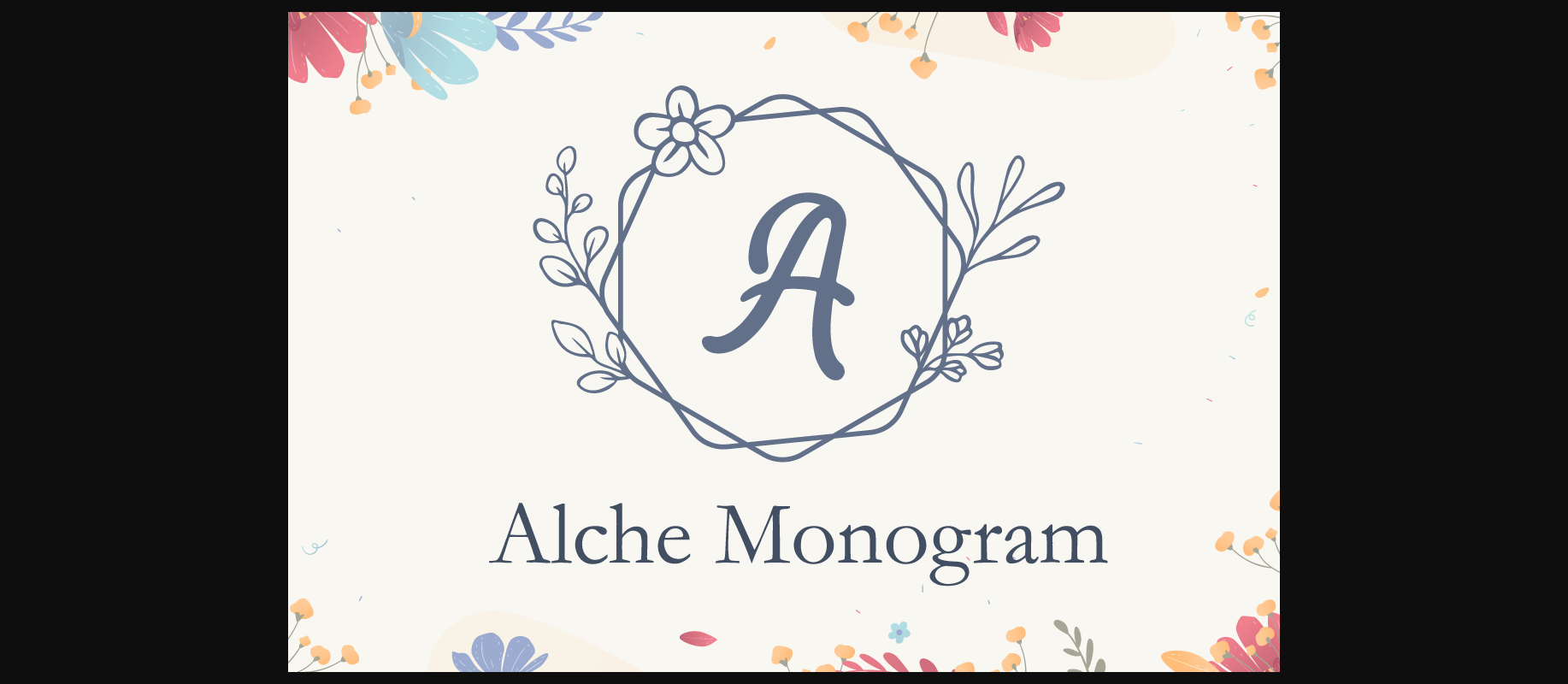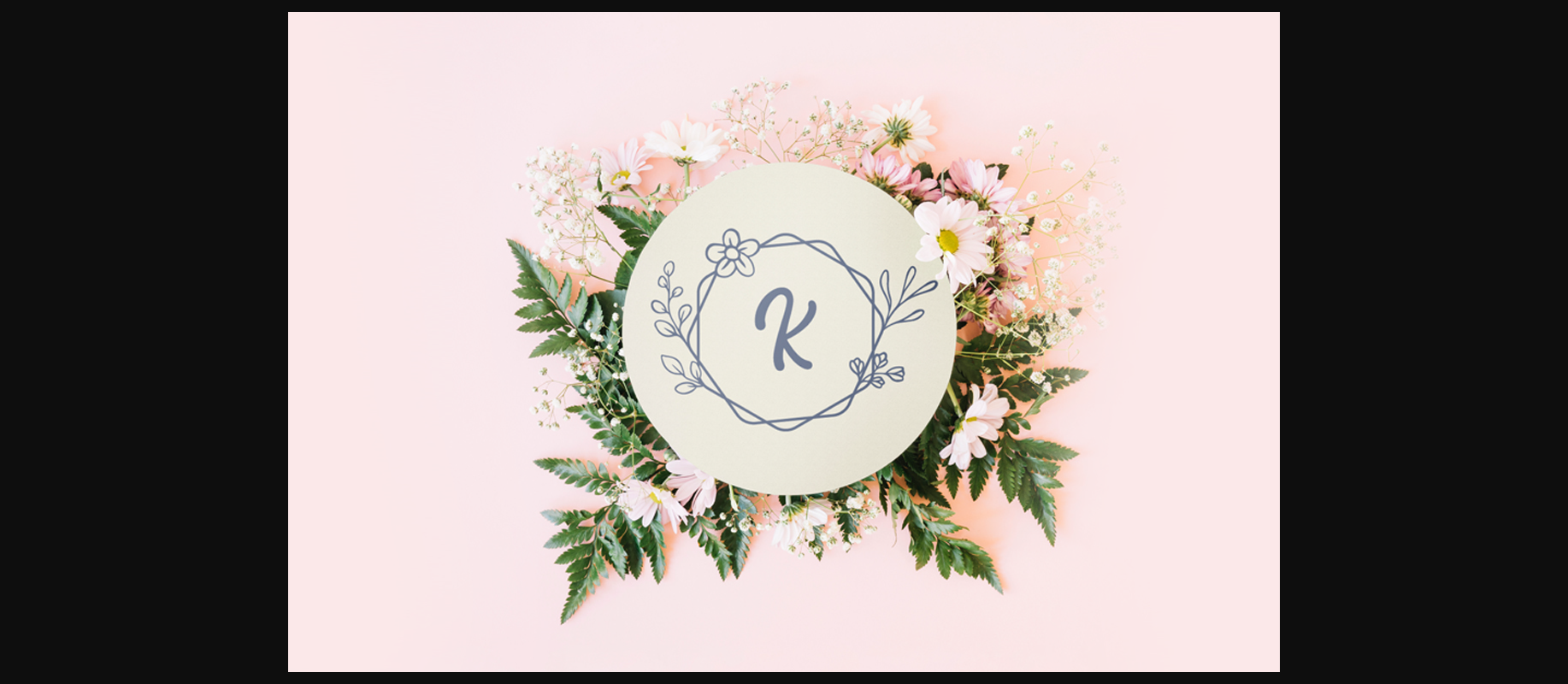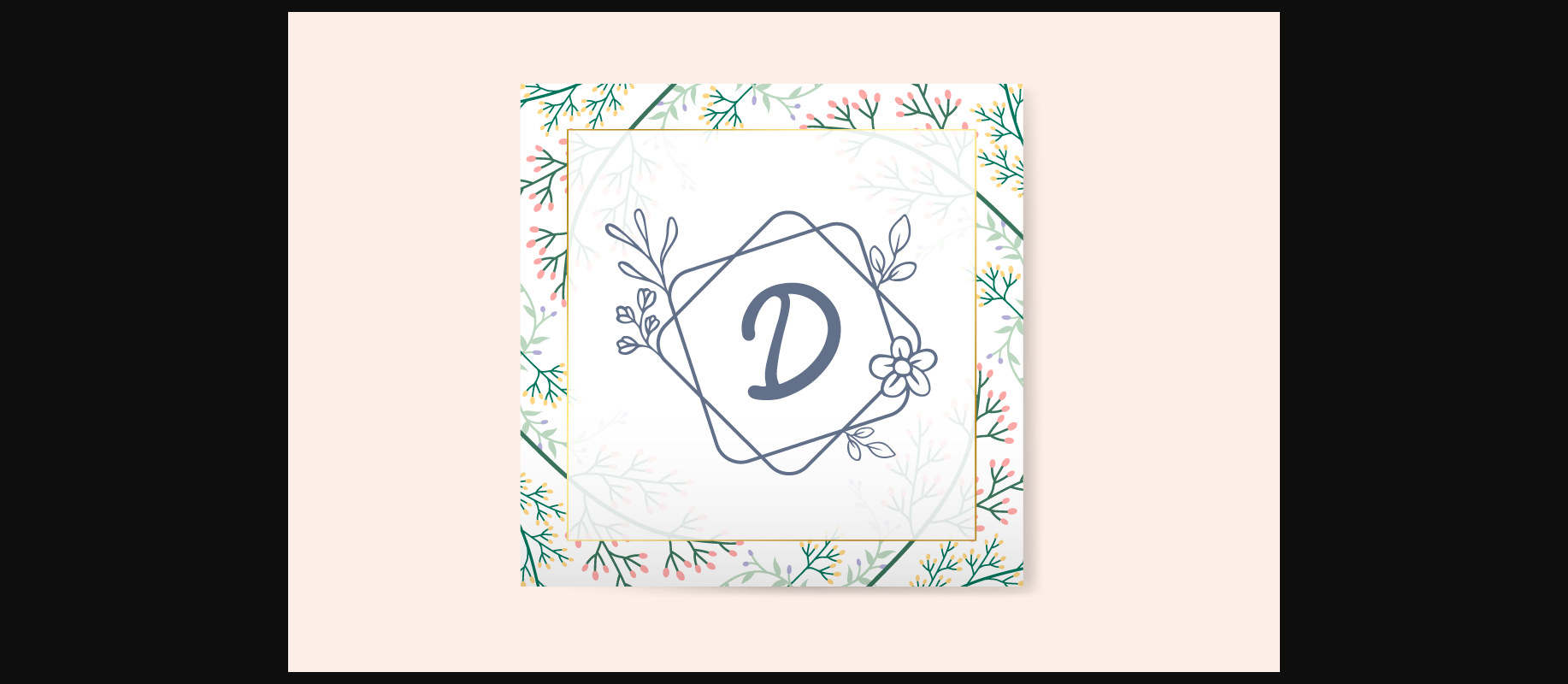
About Alche Monogram Font
Alche Monogram is a lovely and dainty decorative font. Add this romantic and lovely looking font to each of your love letters, wedding invitations or favorite design ideas, and you will be astounded by the outcome.